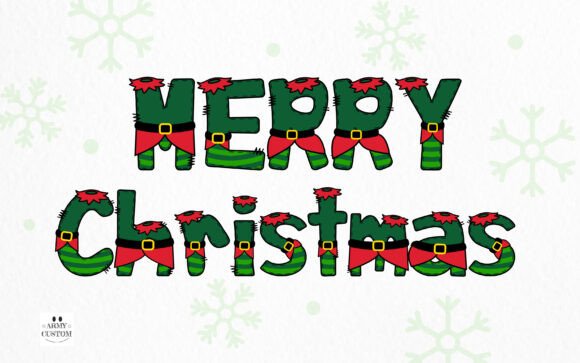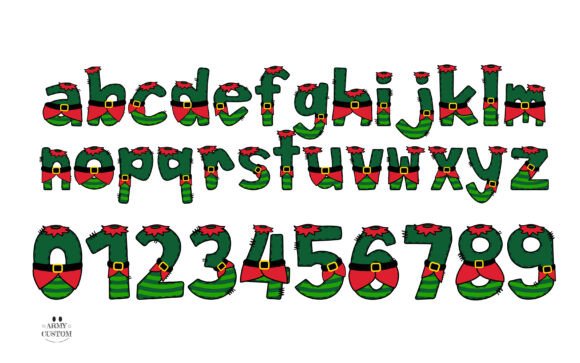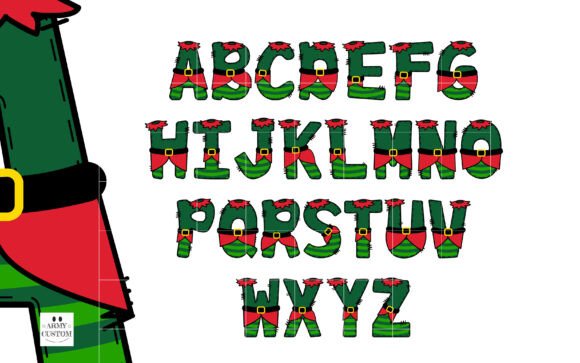
Introduction to Elf Squad Green Stripes Font
Elf Squad – Green Stripes Edition brings a festive twist to your holiday designs with cozy elf vibes and bold seasonal style.
This full-color display font features dark green letters decked out in striped elf leggings, red collars, candy canes, jingle bells, and stitched details—perfect for capturing that playful North Pole charm With bright character illustrations and joyful accents, it’s the ultimate font for making your Christmas crafts and designs come alive with holiday spirit.
Key Features of Elf Squad Green Stripes Font
Why Choose Elf Squad Green Stripes Font?
Elf Squad Green Stripes Font offers exceptional quality and versatility, making it a valuable addition to your design toolkit. Whether you’re creating for personal projects or commercial use, Elf Squad Green Stripes Font delivers professional results.